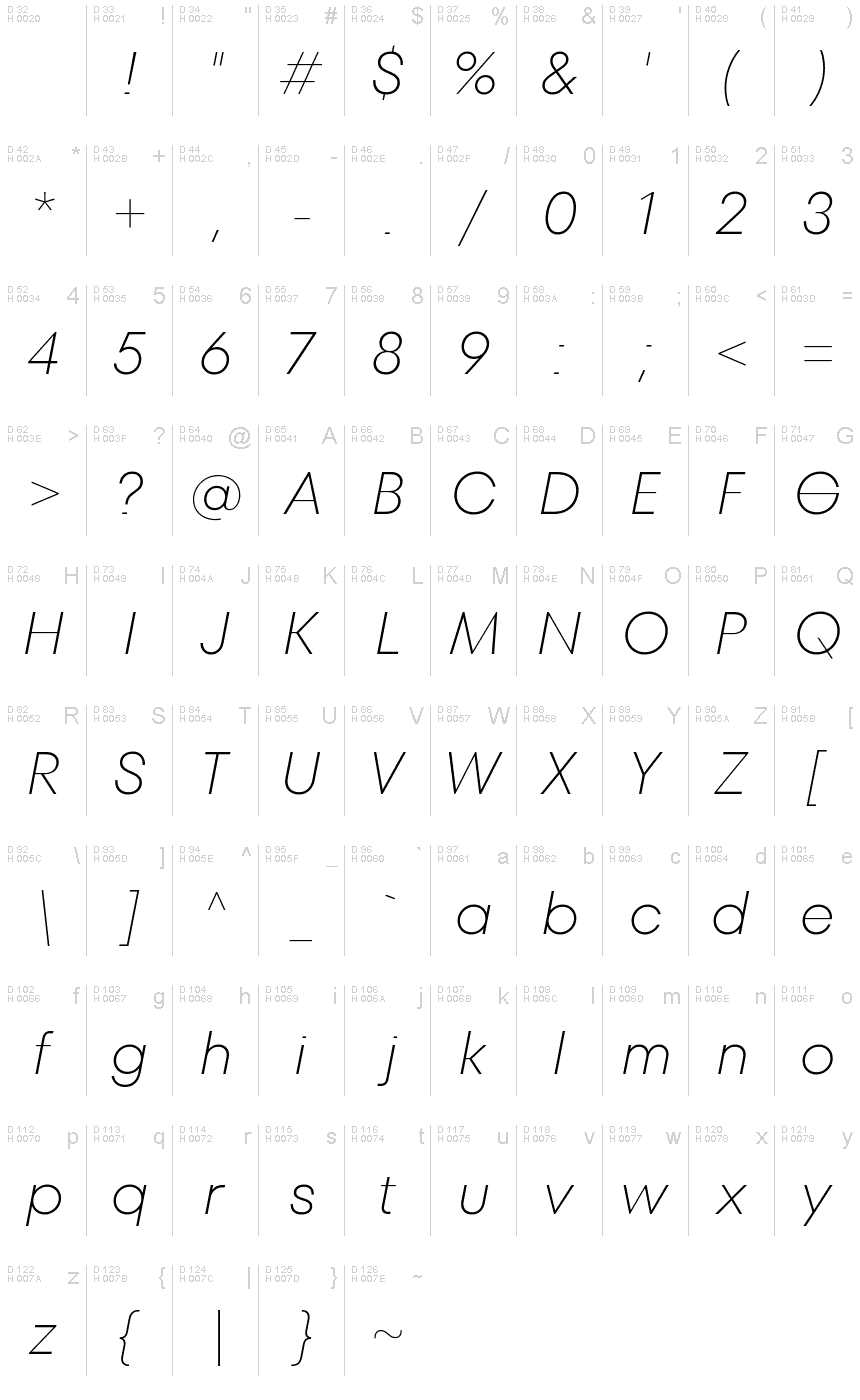
TT Fors Display Trl ExtraLight Italic
TT Fors Display ExtraLight Italic is a sleek, modern sans serif font designed by TypeType Foundry. With its extra-light weight and italic style, this font is perfect for minimalist projects that require a touch of elegance. From high-end fashion magazines to chic branding campaigns, TT Fors Display ExtraLight Italic adds sophistication and refinement to any design. Use it for headings or body text in print or digital media, creating an eye-catching contrast against heavier fonts. This font's versatility makes it suitable for a wide range of projects, including websites, packaging design, invitations and more.